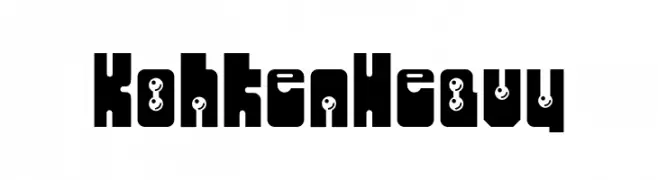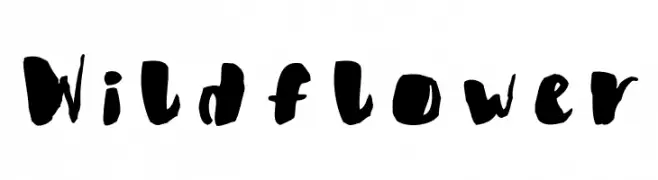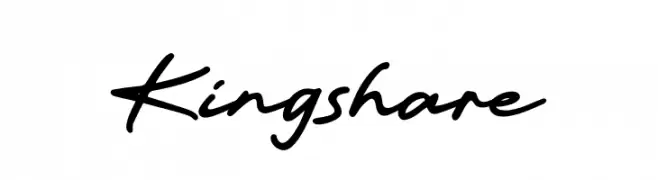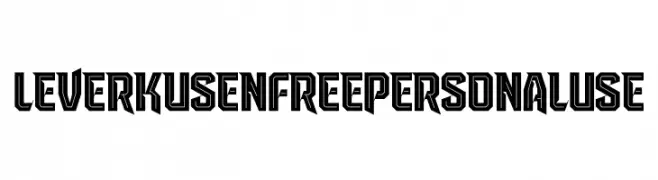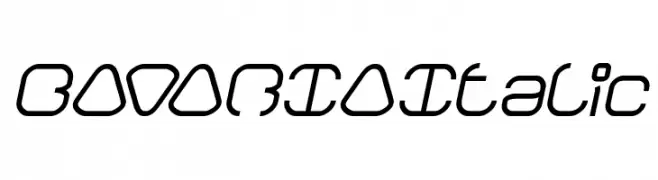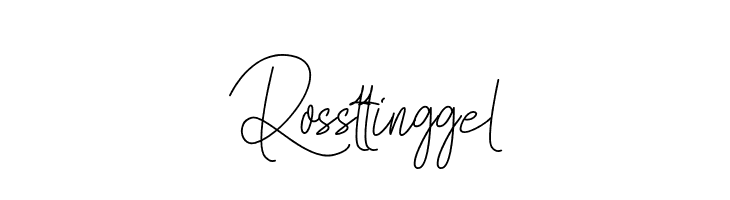
An ornate and decorative font with intricate swirls and loops.
A bold, geometric font with an industrial and futuristic design.
A graceful, flowing script font with elegant, interconnected letters.
A charming and elegant script font with flowing, cursive letterforms.
A bold, hand-painted font with an artistic and playful style.
A lively, handwritten font with fluid, connected strokes and a dynamic slant.
A modern, elegant script font with flowing, interconnected characters.
A bold, italicized font with a futuristic halftone effect and sharp geometric shapes.
A dynamic, expressive handwritten font with fluid strokes and artistic flair.
A bold, geometric font with angular lines and a three-dimensional outline effect.